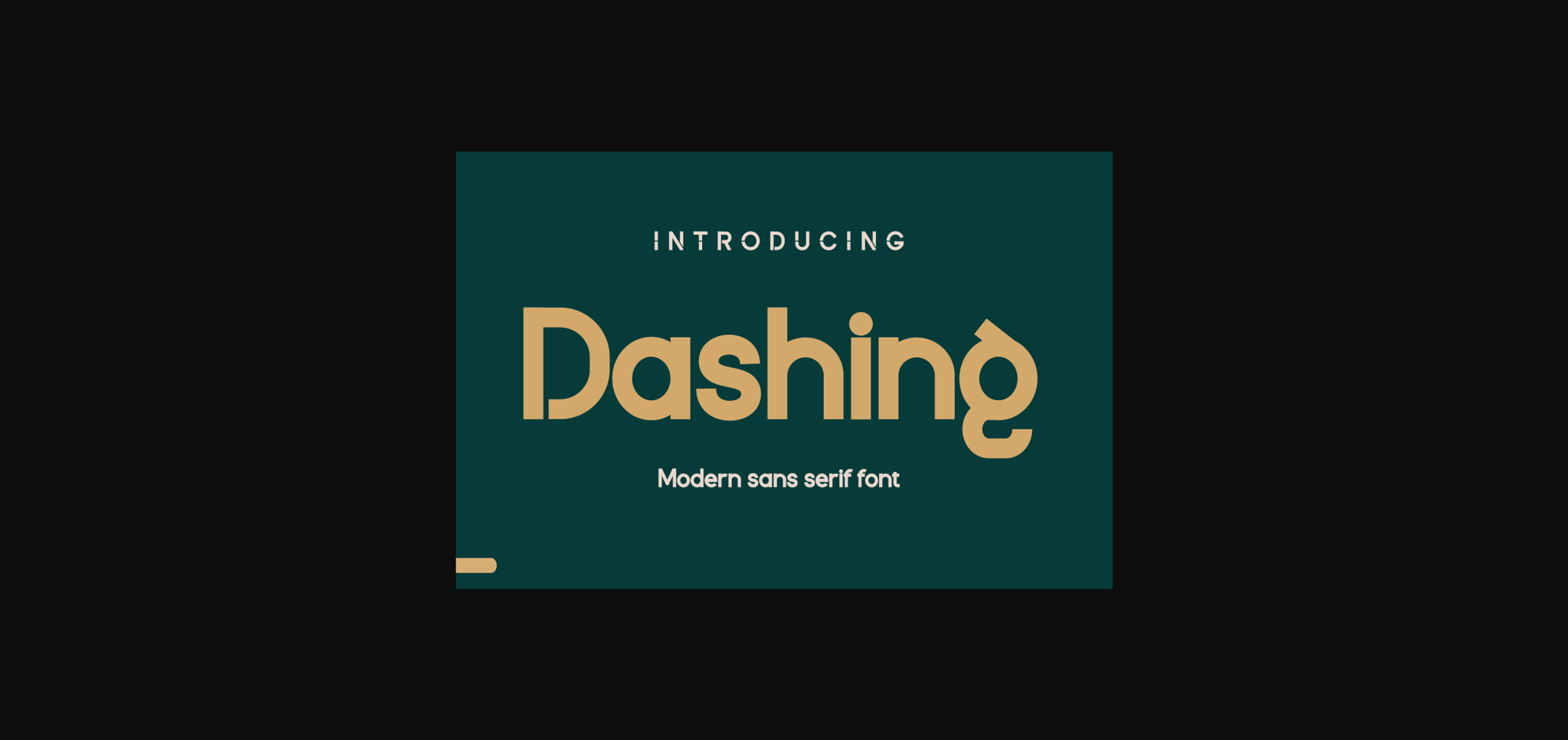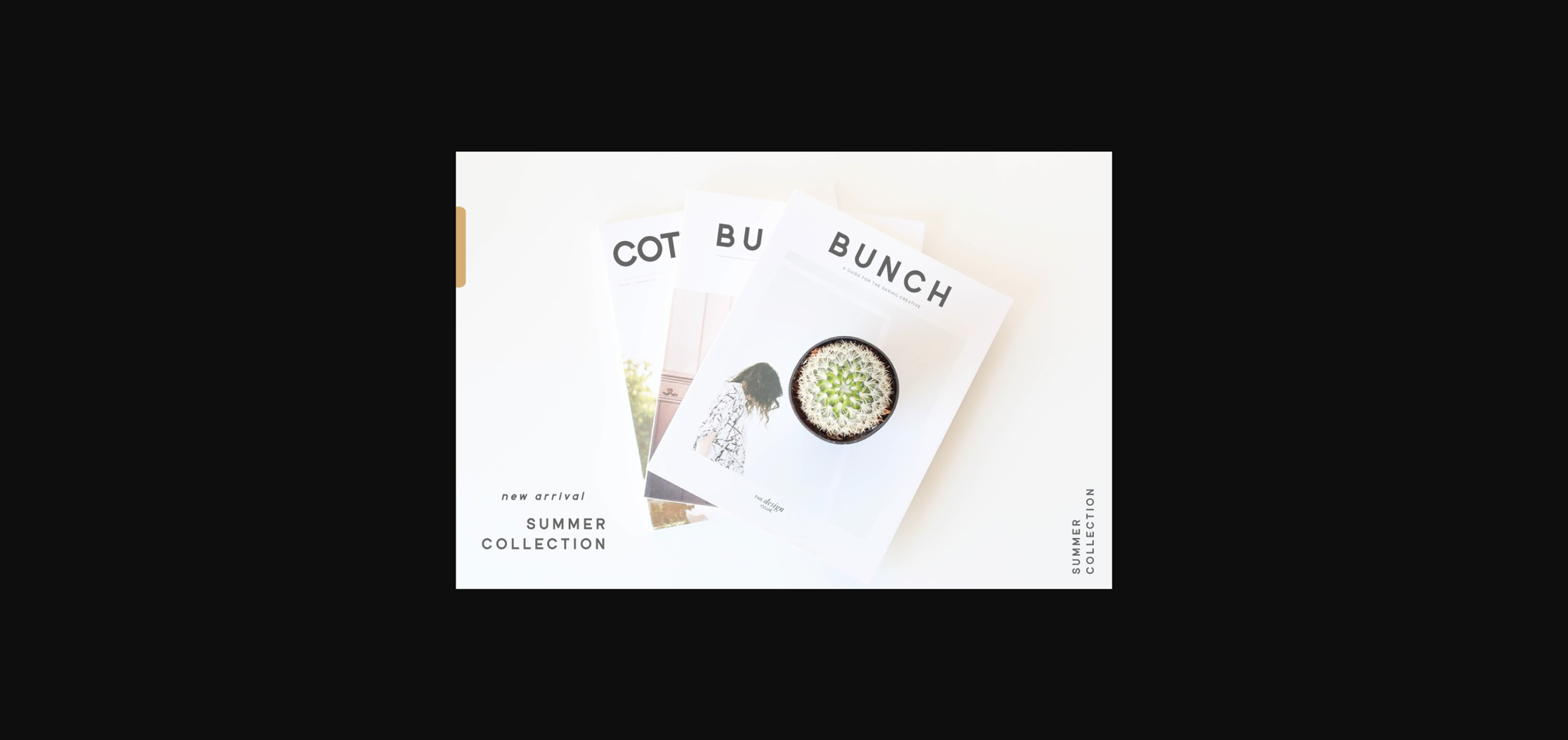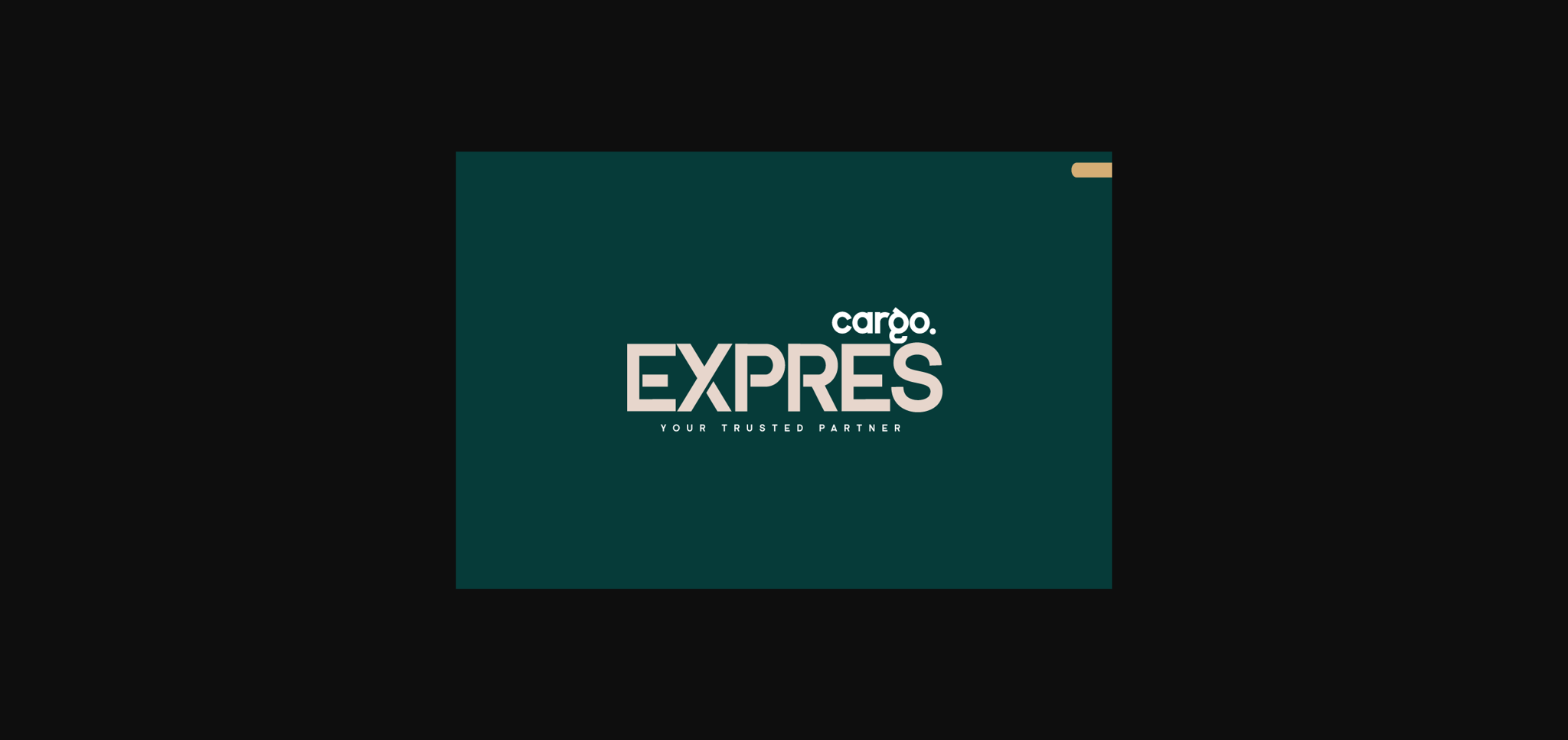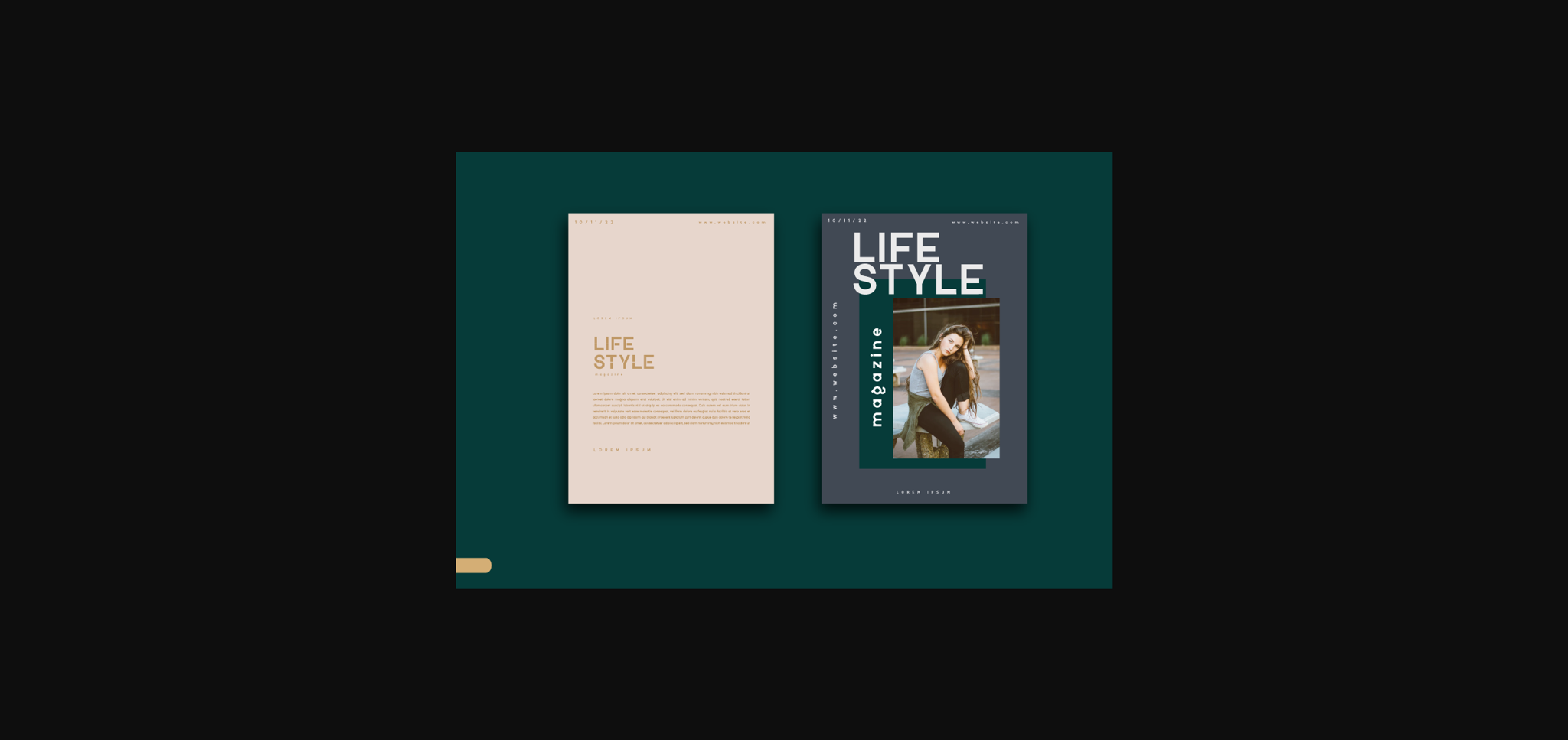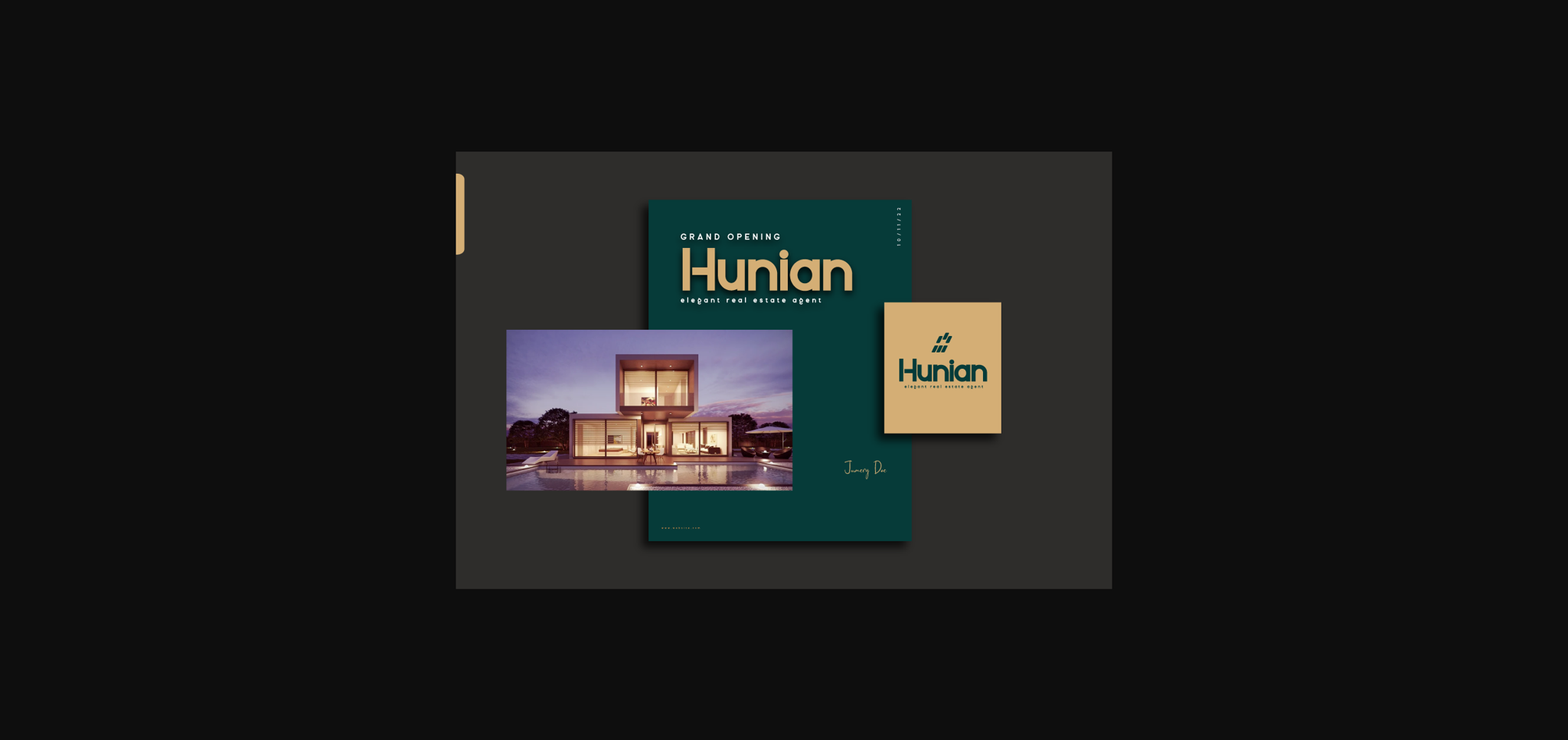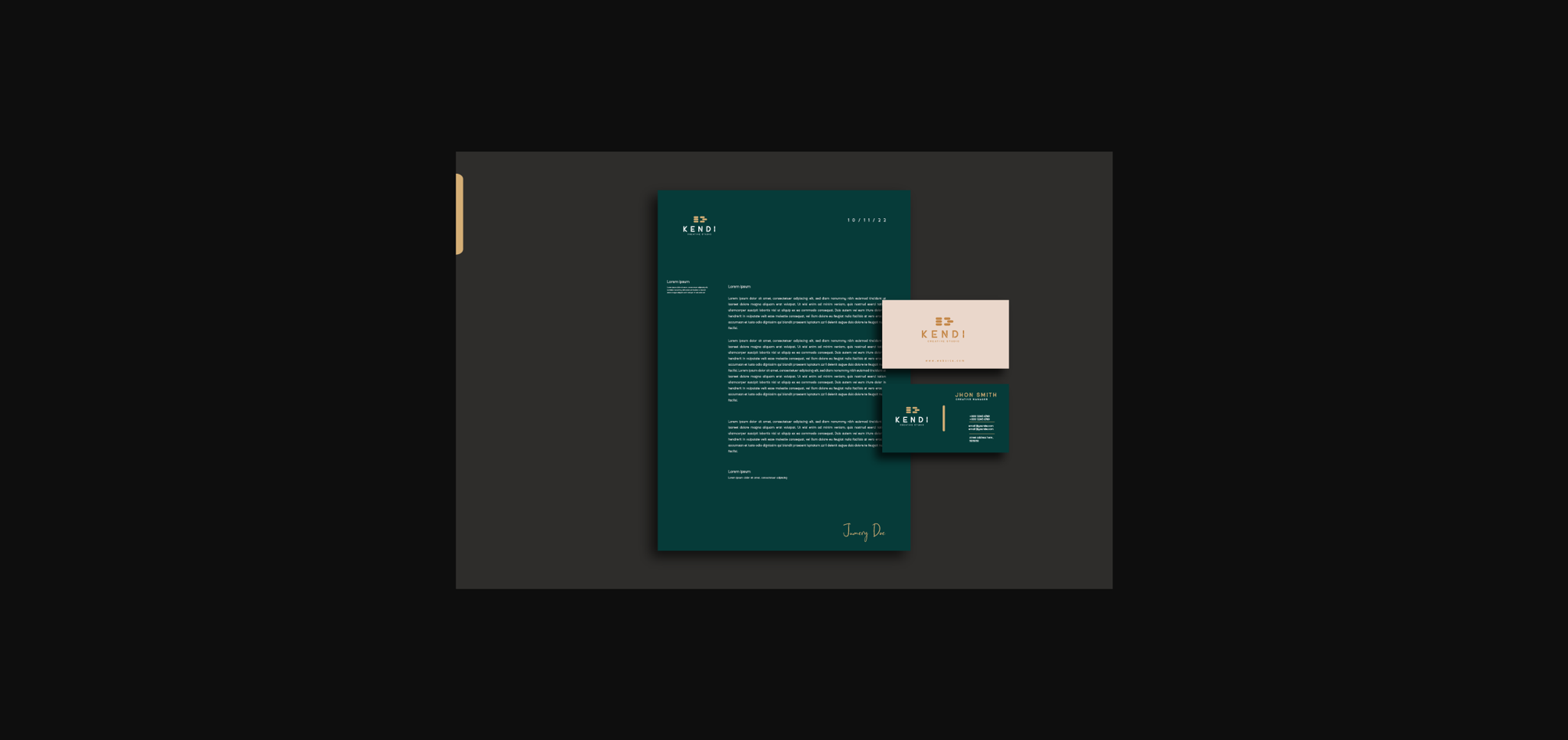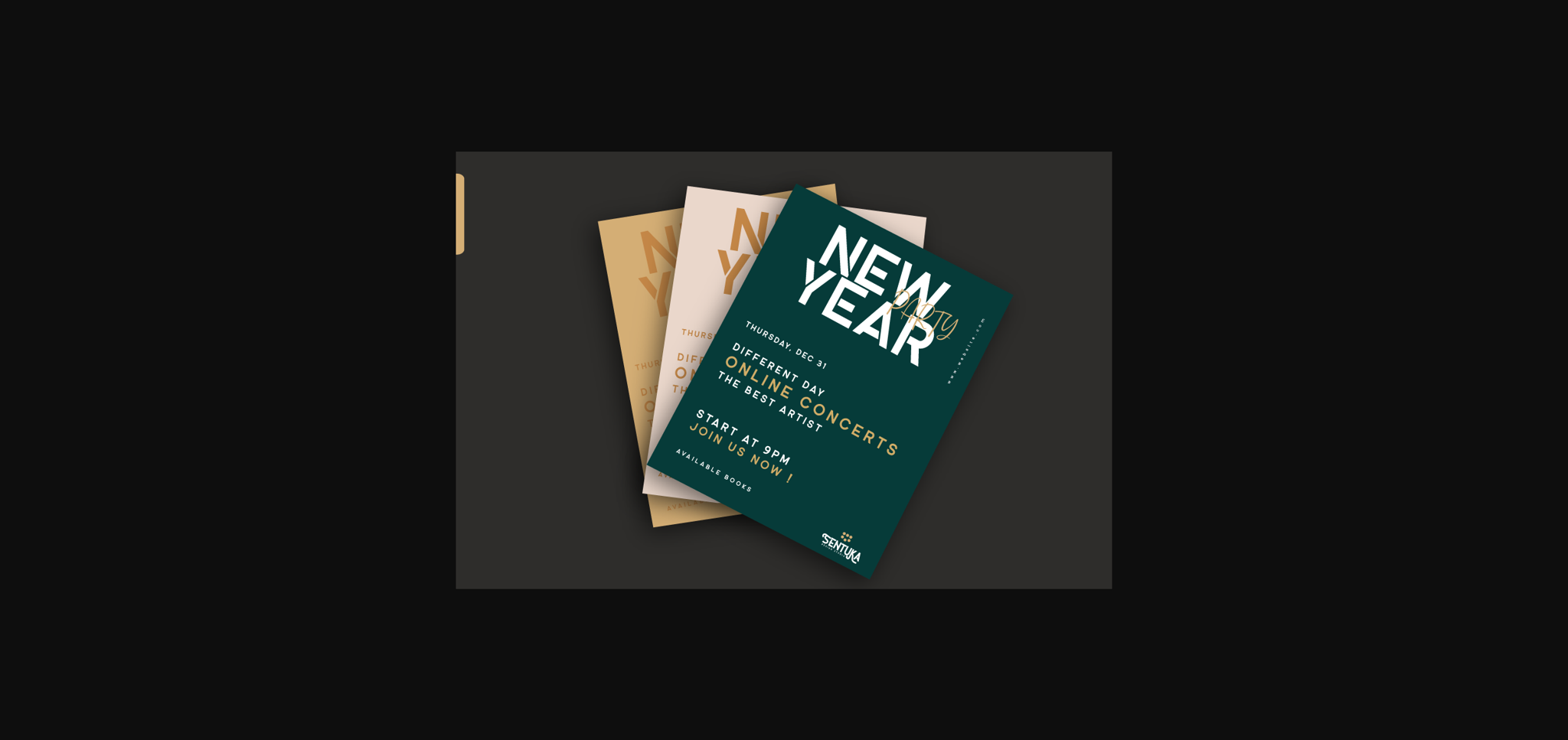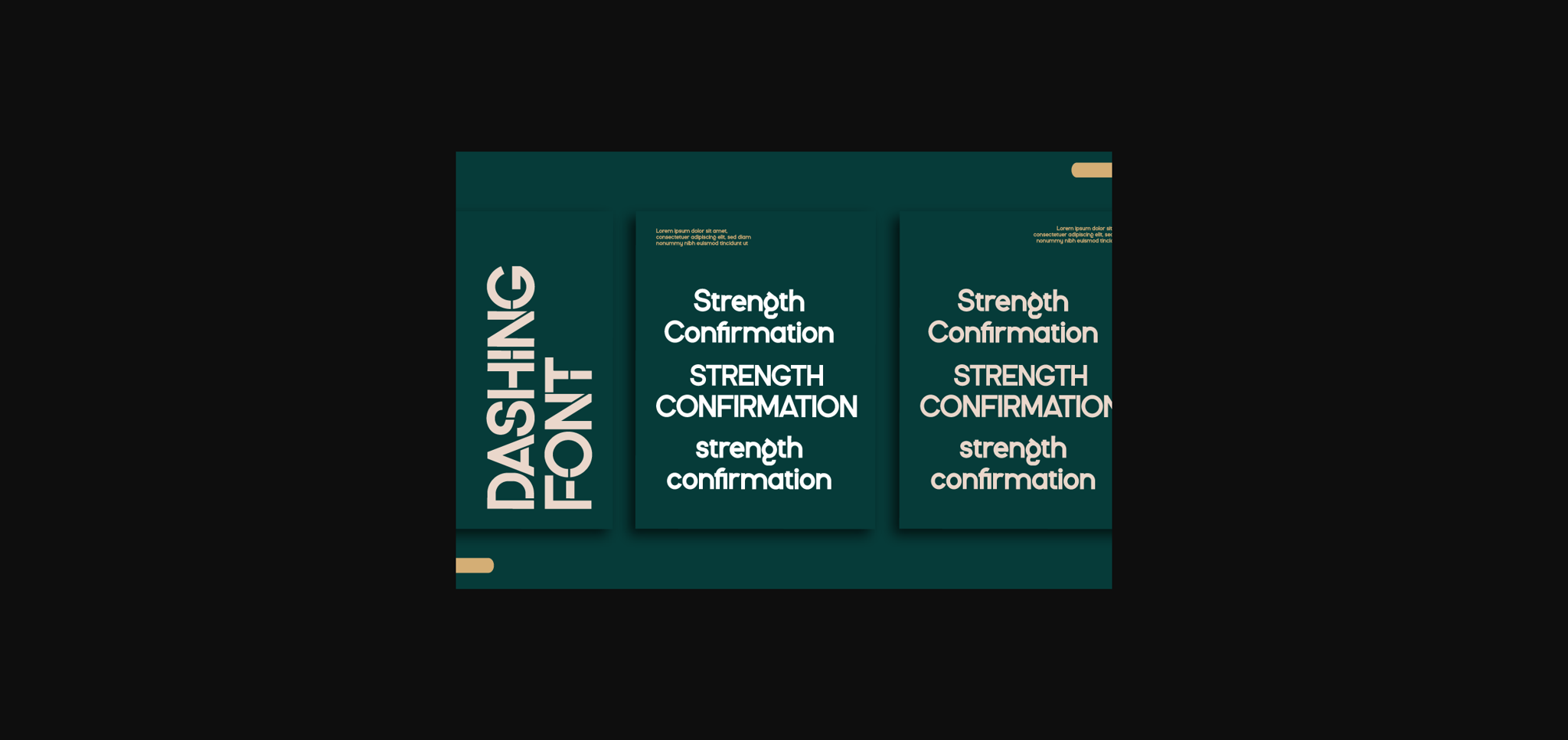
Dashing is a modern and bold sans serif font. No matter the topic, this font will be an incredibly asset to your fonts’ library, as it has the potential to elevate any creation.